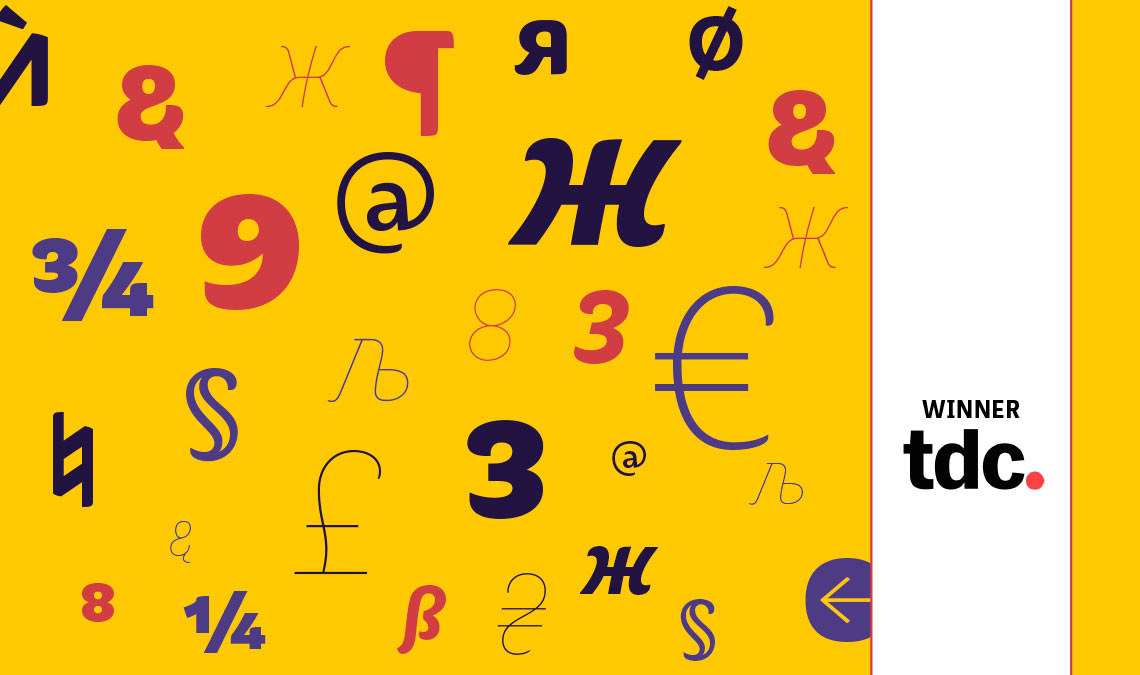
TDC Award 2012
Iskra by Tom Grace won the Certificate of Excellence in Type Design 2012.
Tom Grace’s Iskra has been selected by the jury of the renowned TDC competition to receive the Certificate of Excellence in Typeface Design, and will be included in the Annual of the Type Directors Club, Typography 34. Iskra manages to detach itself from the usual sans serif stiffness by paying tribute to the less-predictable style of brush lettering. The typeface was conceived to challenge the limits between utilitarian and decorative.